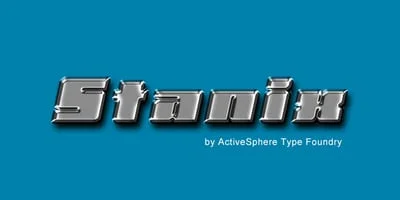
Stanix Font
Stanix Font is perfect for sports team branding, action movie titles, gaming logos, fitness center signage, automotive advertising, energy drink packaging, extreme sports promotions, military-themed designs, industrial equipment branding, and high-impact marketing campaigns. Its powerful character makes it ideal for projects requiring strength, dynamism, and commanding presence.
What makes Stanix Font exciting is its aggressive, bold design that commands immediate attention and conveys raw power and determination. The font features sharp angular cuts, robust stroke weights, and dynamic letterforms that create intense visual impact and memorable brand recognition. Its assertive personality brings energy and excitement to any design application, making it perfect for brands targeting active, adventurous audiences. The carefully engineered letterforms maintain excellent legibility even at high speeds or challenging viewing conditions, ensuring effective communication in demanding environments.
Stanix Font comes in multiple powerful variations including Regular, Bold, Black, Condensed, and Stencil styles. Each family member amplifies the distinctive strong character while offering versatility for different impact levels and space requirements. The complete font family includes alternate characters, stylized numerals, and special symbols that enhance the aggressive aesthetic and provide comprehensive branding solutions.
Whether you're creating action-packed campaigns, sports branding, or high-energy promotions, Stanix Font provides the commanding presence needed to dominate competitive markets. The font's powerful design appeals to thrill-seeking audiences while maintaining professional quality standards. Its extensive character set supports international applications and special symbols, making it perfect for global brands seeking to project strength, reliability, and unstoppable momentum across diverse markets and challenging applications.